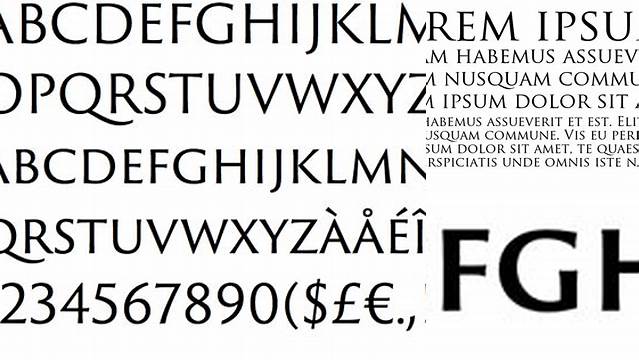
Trajan Sans Pro Bold Font Free Download: The Ultimate Guide
Hey guys! Are you looking for that perfect font to add a touch of classic elegance to your design projects? Look no further! In this comprehensive guide, we're diving deep into the world of Trajan Sans Pro Bold Font, a typeface that exudes sophistication and gravitas. Whether you're a seasoned designer or just starting out, understanding how to access and utilize this font can significantly elevate your work. We'll explore everything from where to find a free download (and what to watch out for!), its history, its best uses, and even some fantastic alternatives. So, buckle up and let's get started on this fontastic journey!
What is Trajan Sans Pro Bold?
Trajan Sans Pro Bold is a typeface that commands attention. It's not just any font; it's a statement. Inspired by the inscriptions on the base of Trajan's Column in Rome, this font carries with it a sense of history and authority. The bold weight adds an extra layer of impact, making it ideal for headlines, titles, and any place where you need your text to stand out. But what exactly makes Trajan Sans Pro Bold so special? It's the perfect blend of classical inspiration and modern design sensibilities. The clean lines, the sharp serifs, and the overall balance make it incredibly versatile. It can be used in a wide range of projects, from branding and advertising to editorial design and web typography. The bold weight specifically lends itself well to situations where you need a strong visual presence. Think movie posters, book covers, and impactful website headers. Imagine the weight of historical inscriptions, translated into a digital age – that’s the essence of this bold font. It speaks of permanence, grandeur, and unwavering strength, making it a favored choice for projects that aim to convey these very qualities. For designers aiming to imbue their work with a touch of timeless elegance, Trajan Sans Pro Bold serves as an exceptional tool, bridging the gap between the ancient world and contemporary design practices.
History and Origins of Trajan Sans Pro
Let's take a trip back in time, shall we? Trajan Sans Pro Bold Font's story begins in ancient Rome, with the Trajan Column, a monument erected in 113 AD to commemorate Emperor Trajan's victory in the Dacian Wars. The inscriptions at the base of the column are renowned for their exquisite letterforms, which have served as a source of inspiration for countless type designers. Carol Twombly, a celebrated type designer at Adobe, is the mastermind behind Trajan Sans Pro. She meticulously studied the Roman inscriptions and distilled their essence into a digital typeface that captures the spirit of the originals while making it suitable for modern applications. The result is a font that feels both timeless and contemporary. Twombly's design isn't just a direct copy of the Roman letters; it's an interpretation. She carefully considered the proportions, the weight, and the spacing to create a font that works beautifully in a variety of sizes and contexts. Trajan Sans Pro Bold Font itself was released as part of the Adobe Originals program, which is known for its high-quality, meticulously crafted typefaces. This program has been instrumental in shaping the landscape of digital typography. It’s more than just a font; it’s a piece of history brought to life in the digital age. Understanding its origins helps to appreciate its inherent gravitas and the reason it continues to be a staple in the design world. When you use this font, you're not just choosing a typeface; you're invoking a legacy that stretches back millennia.
Key Features of Trajan Sans Pro Bold Font
Okay, so what makes Trajan Sans Pro Bold Font stand out from the crowd? It's all about the details, guys! First off, let's talk about the serifs. These are the little feet or strokes at the ends of the letters. Trajan Sans Pro Bold has strong, sharp serifs that contribute to its formal and authoritative look. The uppercase letters are particularly striking, as they are based directly on the Roman capitals. They have a majestic quality that makes them perfect for titles and headings. The bold weight, of course, adds to this impact. It gives the letters more presence and makes them really pop off the page or screen. Beyond the aesthetics, Trajan Sans Pro Bold is also incredibly legible. The letterforms are well-defined and the spacing is carefully considered, making it easy to read even at smaller sizes. This is crucial for any font that you plan to use in body text or in designs that require a lot of reading. Another key feature is its versatility. While it's often associated with formal and classical designs, Trajan Sans Pro Bold Font can also be used in more contemporary contexts. It can add a touch of sophistication to a modern logo or bring a sense of history to a website design. The font’s inherent strength is balanced by its elegance, creating a versatile tool for designers. Its ability to convey both authority and refinement makes it a standout choice for projects aiming for a high-end feel. When you select this font, you’re opting for a typeface with a proven track record of impact and readability, ensuring your message resonates clearly and powerfully.
Common Uses of Trajan Sans Pro Bold in Design
Now, let's get practical! How can you actually use Trajan Sans Pro Bold Font in your design projects? This font is incredibly versatile, but it truly shines in situations where you want to convey a sense of authority, elegance, and timelessness. One of the most common uses is in branding, particularly for high-end brands or those with a historical connection. Think luxury goods, law firms, museums, and cultural institutions. Trajan Sans Pro Bold Font can add a touch of sophistication and credibility to a logo or brand identity. It's also a popular choice for headlines and titles. The bold weight commands attention and makes your text stand out. This makes it perfect for book covers, movie posters, and website headers. In the world of print design, Trajan Sans Pro Bold is often used in magazines, brochures, and other publications. It can add a touch of class to editorial layouts and help to create a visually appealing hierarchy. On the web, Trajan Sans Pro Bold Font is frequently used for headings and navigation menus. Its strong presence helps to guide the user's eye and create a clear visual structure. The font’s inherent readability, even in its bold form, makes it suitable for various applications, from digital interfaces to printed materials. Its strong serifs and classic proportions ensure that it communicates a sense of professionalism and sophistication. Whether you’re designing a corporate identity or a promotional campaign, Trajan Sans Pro Bold is a versatile tool for adding a touch of timeless elegance to your work.
Trajan Sans Pro Bold Font for Logos and Branding
When it comes to logos and branding, Trajan Sans Pro Bold Font is a powerhouse. It's a font that instantly communicates trust, authority, and a sense of history. This makes it an excellent choice for businesses and organizations that want to project a strong and established image. Imagine a law firm with a logo set in Trajan Sans Pro Bold. It conveys a sense of professionalism and expertise. Or a museum using the font in its branding materials, evoking a sense of cultural heritage and sophistication. The bold weight of Trajan Sans Pro Bold Font ensures that the logo stands out and is easily recognizable. It has a commanding presence that grabs attention and makes a lasting impression. But it's not just about looking good. A well-chosen font can also communicate a brand's values and personality. Trajan Sans Pro Bold Font, with its classical roots, suggests a commitment to tradition and excellence. It can also convey a sense of luxury and exclusivity, making it a popular choice for high-end brands. When using Trajan Sans Pro Bold in a logo, it's important to consider the overall design and the brand's target audience. It may not be the right choice for a playful or whimsical brand, but it can be perfect for those seeking a timeless and authoritative look. Its versatility allows it to be paired effectively with a variety of other fonts and design elements. When used thoughtfully, Trajan Sans Pro Bold Font can elevate a brand’s identity, creating a memorable and impactful visual representation that resonates with clients and customers alike. A strong logo built on a foundation of a well-chosen typeface like this can set the tone for all branding efforts, ensuring consistency and recognition across various platforms.
Well, guys, we've reached the end of our deep dive into Trajan Sans Pro Bold Font! We've explored its history, its key features, where to find it, how to use it effectively, and even some fantastic alternatives. Hopefully, you now have a solid understanding of this iconic typeface and how it can elevate your design projects. Remember, Trajan Sans Pro Bold is more than just a font; it's a statement. It's a way to communicate authority, elegance, and a sense of timelessness. Whether you're designing a logo, a website, or a print publication, this font can add a touch of class and sophistication. But like any powerful tool, it's important to use it wisely. Consider the context, choose your font pairings carefully, and pay attention to detail. And most importantly, have fun and let your creativity shine! The knowledge and insights provided in this guide should equip you to make informed decisions about using Trajan Sans Pro Bold Font in your designs. This iconic typeface, with its rich history and versatile application, can undoubtedly enhance your creative projects. By understanding its nuances and applying best practices, you can effectively leverage its strength and elegance to achieve stunning results. As you continue your design journey, remember the principles we’ve discussed and allow them to inform your choices, ensuring your work stands out with a touch of timeless sophistication.